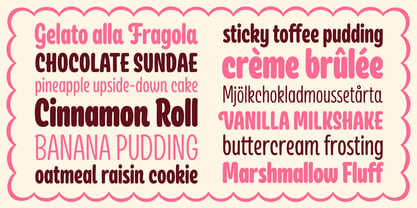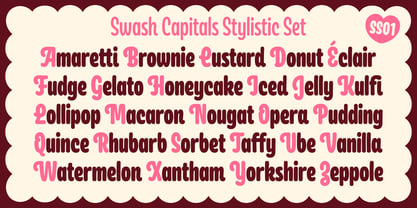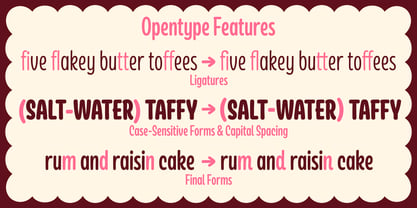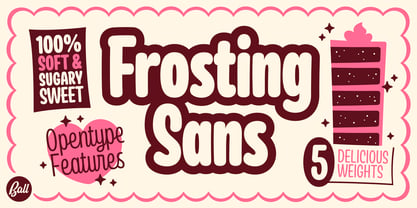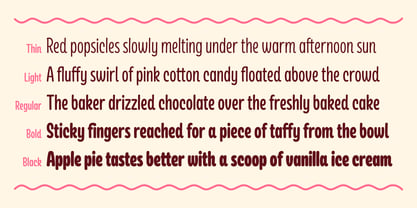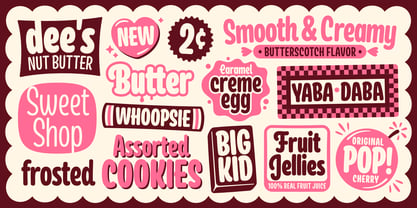
Frosting Sans
La famille de polices Frosting Sans a été conçue par Jonathan Ball et publiée par Jonathan Ball. Frosting Sans contient 5 styles et options de package familial. En savoir plus sur cette famille
Frosting Sans has a playful, sweet vibe that’s meant to make any design feel warm and inviting. Its gently curved stems make it easy to read and approachable. The rounded strokes and low contrast give each letter a soft, almost candy-like feel, which is both inviting and full of personality without being too overwhelming. The Frosting family comes in five delicious weights suitable for any occasion. Plus, it supports over a hundred languages, making it as inclusive as it is fun. If you’re looking for a bit of flair, the swash capitals set adds a touch of elegance and whimsy, which is great for making a statement. And with a rich set of OpenType features, like contextual alternates, final forms, capital spacing, and case-sensitive forms, you get a lot of control and typographic sophistication.
Jonathan Ball is a lettering and typographic designer based in Seattle, Washington. Through his deep appreciation for mid-century design aesthetics, he creates unique and contemporary typefaces that blend nostalgia with modern functionality. His work often reflects a playful yet sophisticated approach, embodying the spirit of yesterday with the design needs of today.